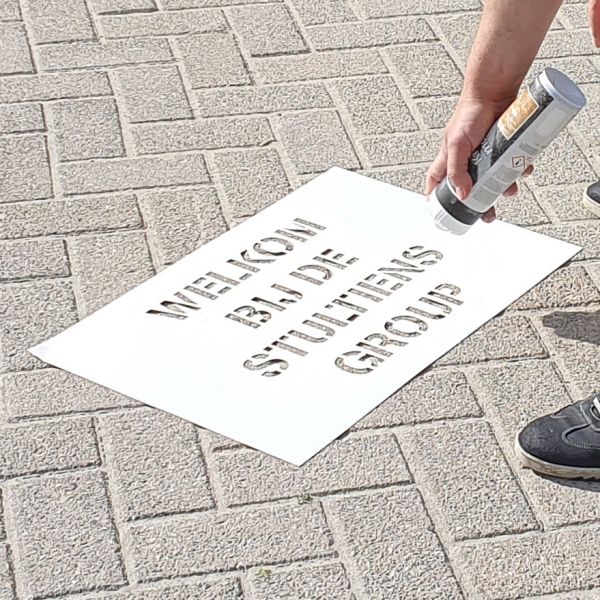
What font is suited for printing out a graffiti template? (Meaning that you don’t have to cut out pieces of paper of the letters, and glue it back (such as with a fully connected circle in the letter ‘O’, in which the middle piece will be cut out too :/, which is what I’m not looking for, obviously).
No I meant which font is already in Pages?
??? you want to know which font is used in the photo you attached? Otherwise most stencil fonts can be used with a plotter to deliver a cutout stencil for spraying… just look at the fonts on dafont.
OK but what font am I looking for? Pr how do I find it?
if you have a better photo of the font you can upload it to e.g. one of the font finder websites. Otherwise in your photo of the stencil there are some characteristic letters like the ”T” and the “M” - dafont.com and AFAIK most of the other font website provide for each font an overview of all glyphs which you have to look at.
Here are for example the sans serif stencil fonts available on Font Space - first skim over the previews, when you find something which might fit your needs, open the individual font page and look at the glyphs.